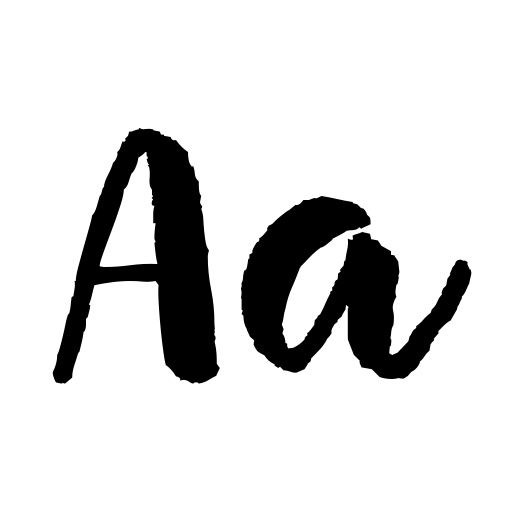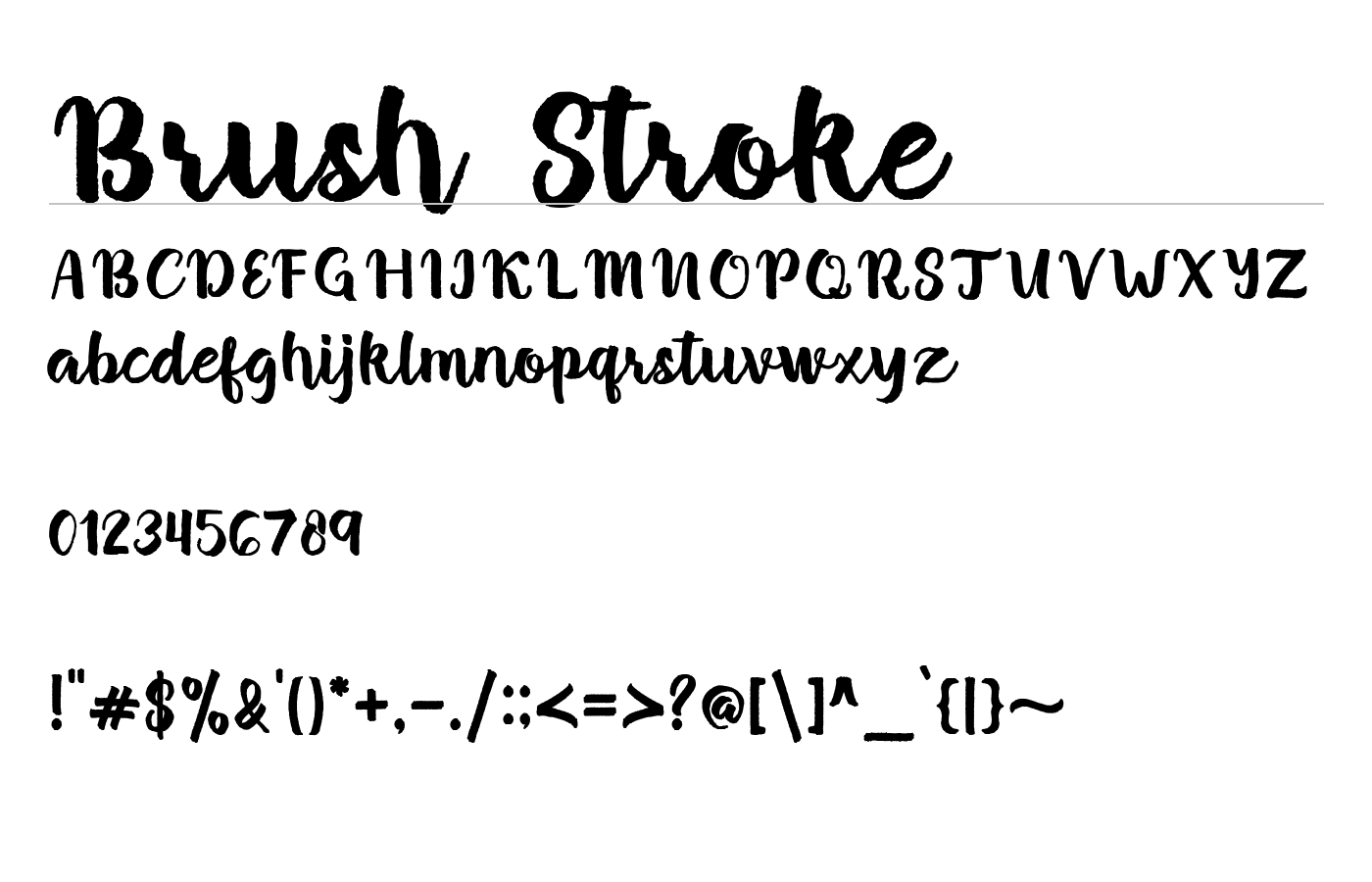
Brush Stroke Font is a lively and expressive script typeface that mimics the natural flow of hand-painted brush lettering. Its bold, textured strokes and casual, slightly irregular shapes give it an artistic and approachable personality, making it ideal for creative projects, packaging, and branding that seek a handcrafted, authentic feel. This font works best in headlines, logos, and display uses where its unique character can shine and draw attention.
Brush Stroke Font
About Brush Stroke Font
| Font family | Brush Stroke Font |
| Designer | Hanif Syahputra |